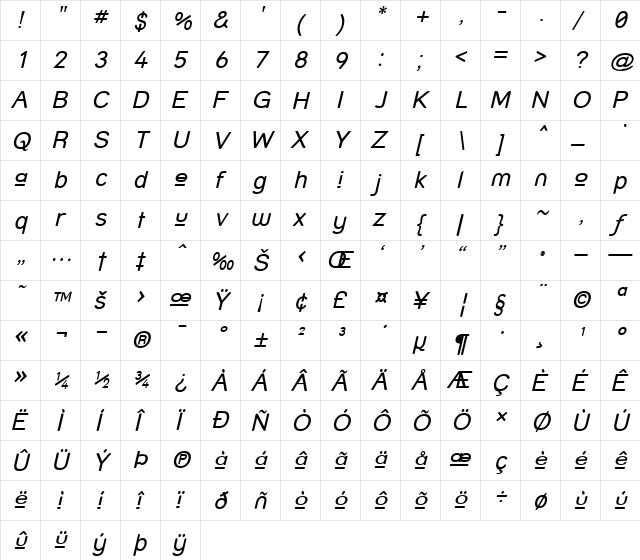
Street - Upper Italic
Design Context for Street - Upper Typeface
Street - Upper takes a measured approach to typography — its balanced proportions and neutral character make it a reliable workhorse for both digital and print work. The dynamic lean of this cut emphasises speed and emphasis in any layout.
Pro Tip: Try Street - Upper for annotation and caption copy alongside an upright companion — the contrast in angle creates a dynamic but ordered typographic system.